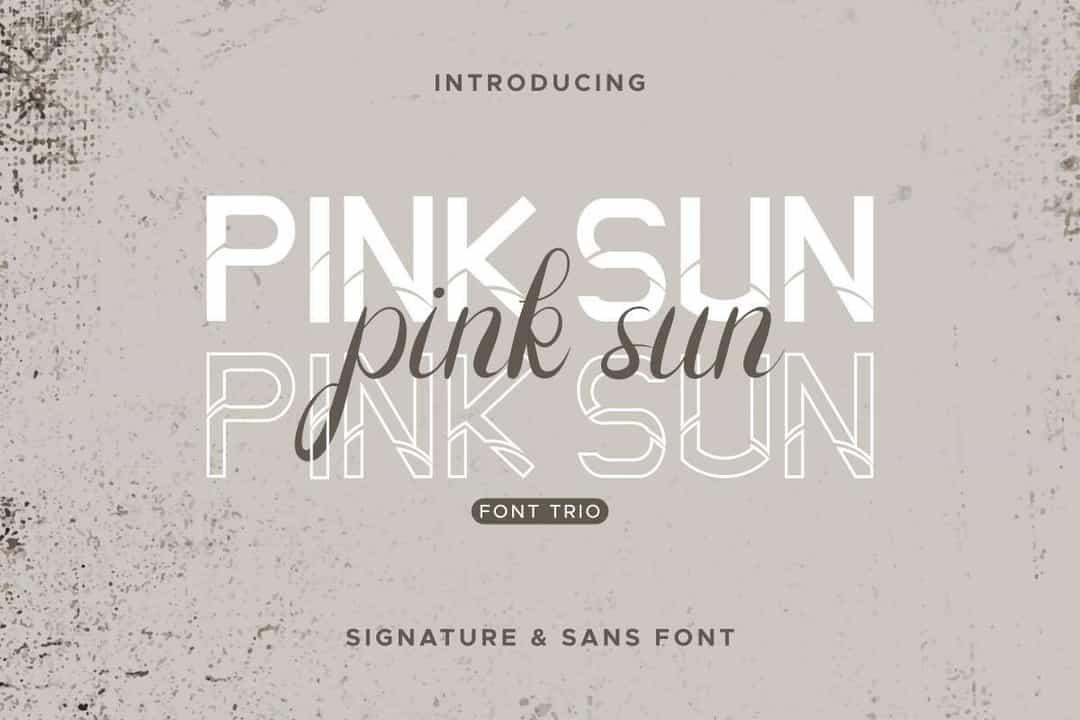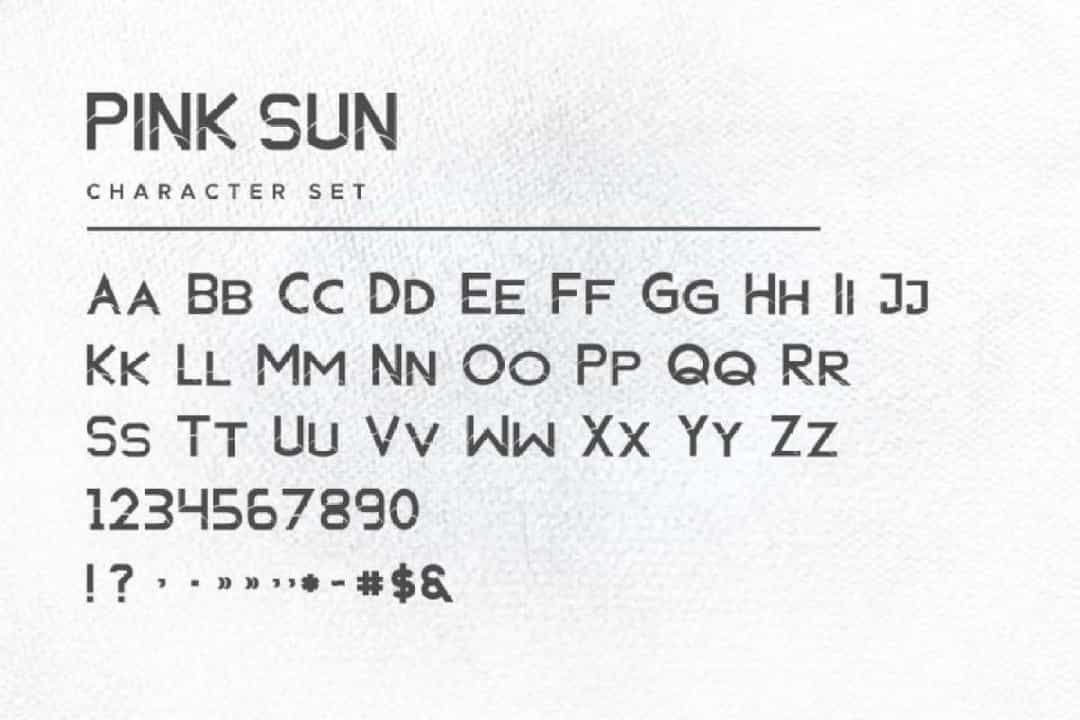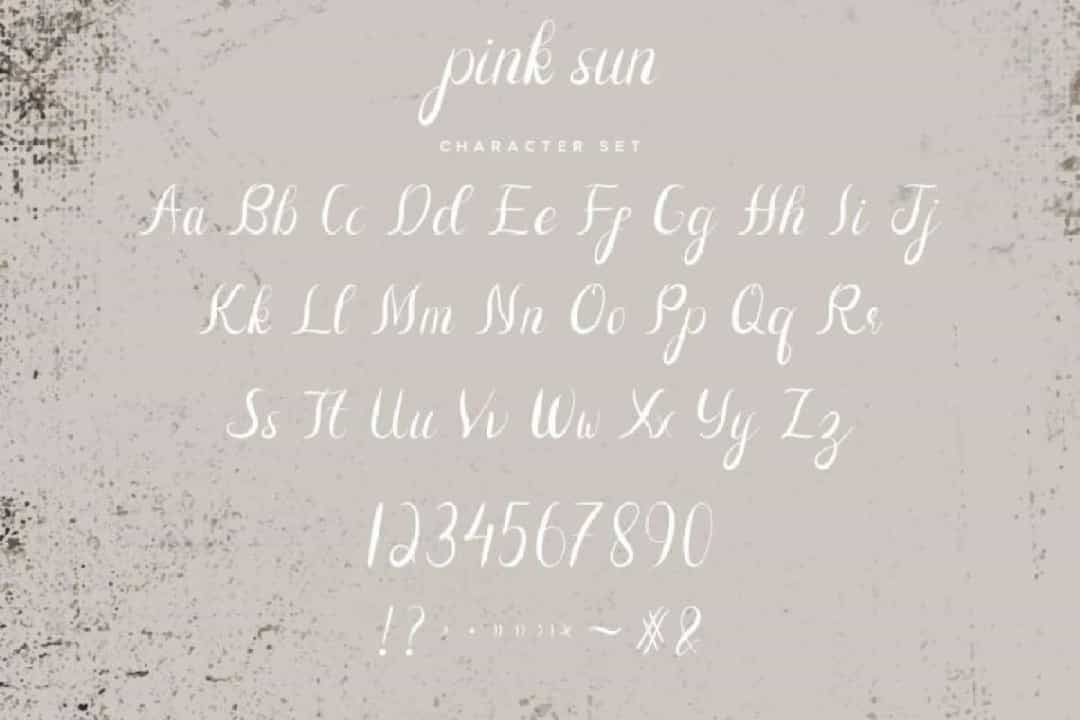
Pink Sun Font Duo is an exclusive family of fonts with two distinct styles. The font comes with a fantastic characters set, that is well-managed by kerning and spaced well. The style of this font is be unique, vintage, fashionable sophisticated, as well as rough-brushed calligraphic.